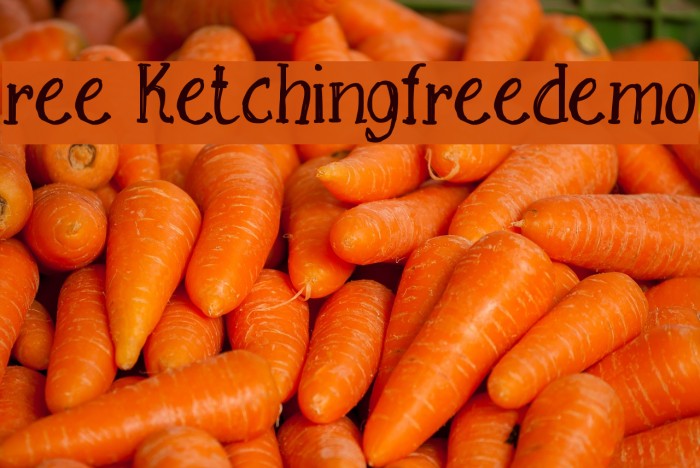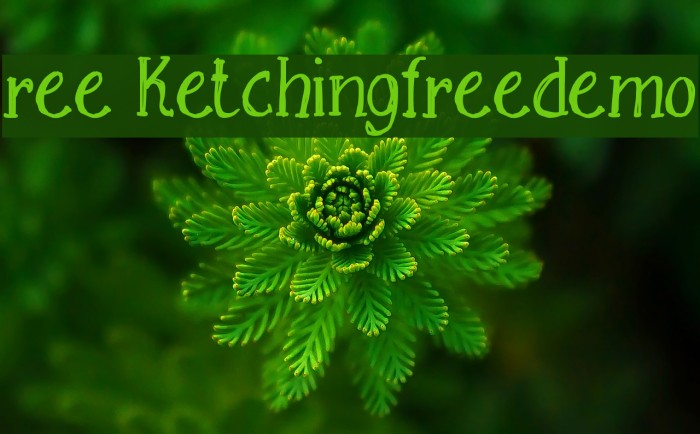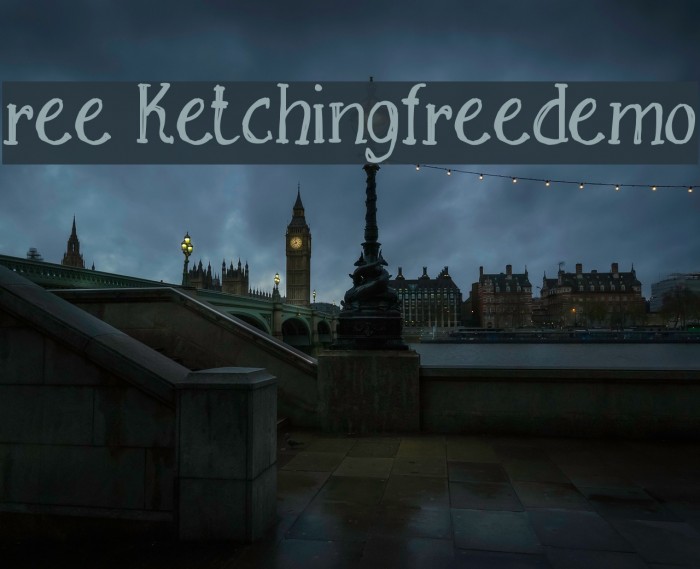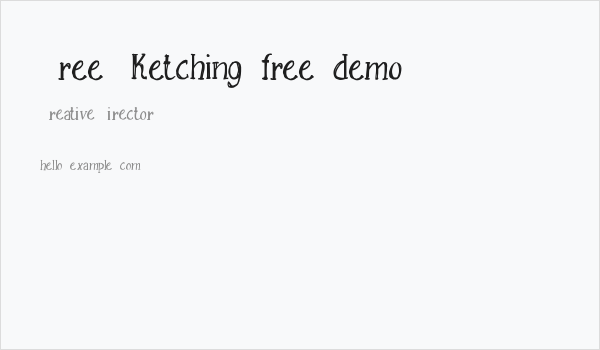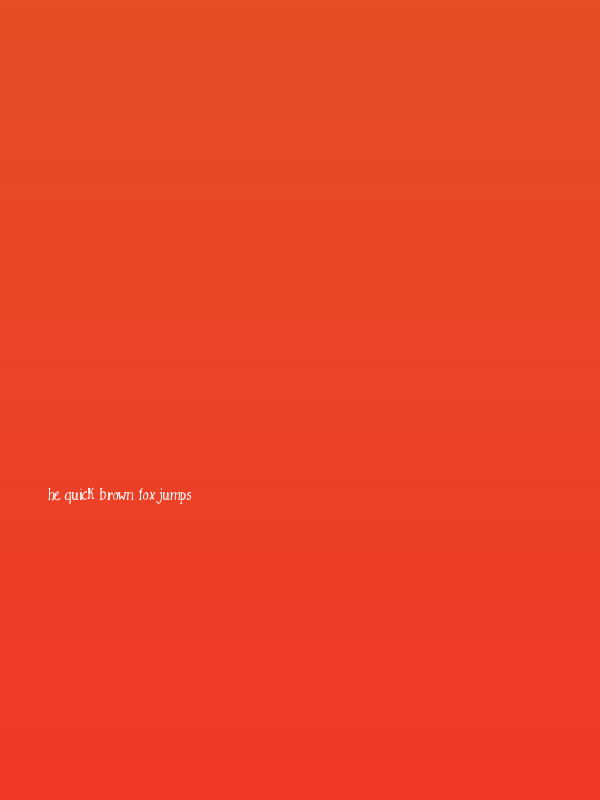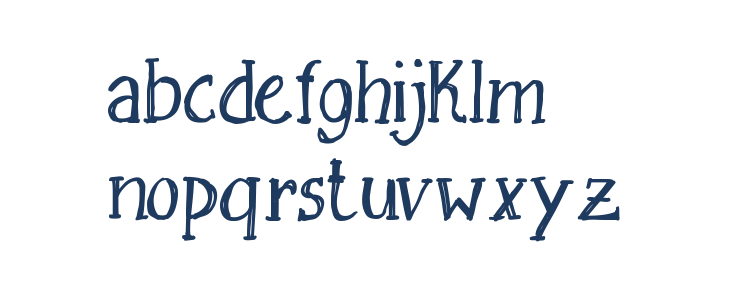
Free Sketching_free-demo Font
Free Sketching_free-demo Description
This font features a playful and artistic style, reminiscent of hand-drawn sketches. Each character is uniquely crafted with irregular strokes, giving it a whimsical and informal appearance. The letters have a slightly uneven baseline, enhancing the casual and free-spirited feel. The strokes vary in thickness, adding a dynamic and lively touch to the text. This font is perfect for projects that require a personal and creative flair, such as children's books, artistic posters, or casual branding materials.
| Use Case | Headlines, Logos, Artistic projects |
| Proposed Projects | Ideal for children's books, artistic posters, casual branding, and creative projects. |